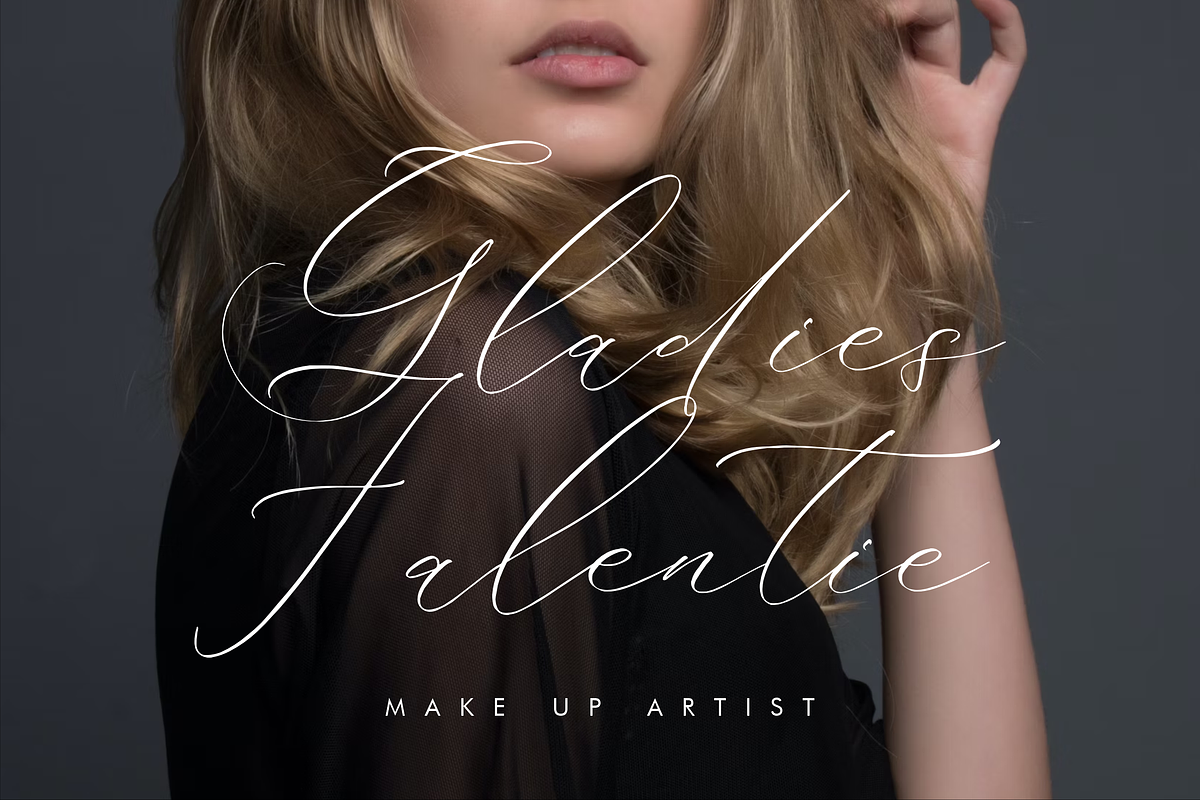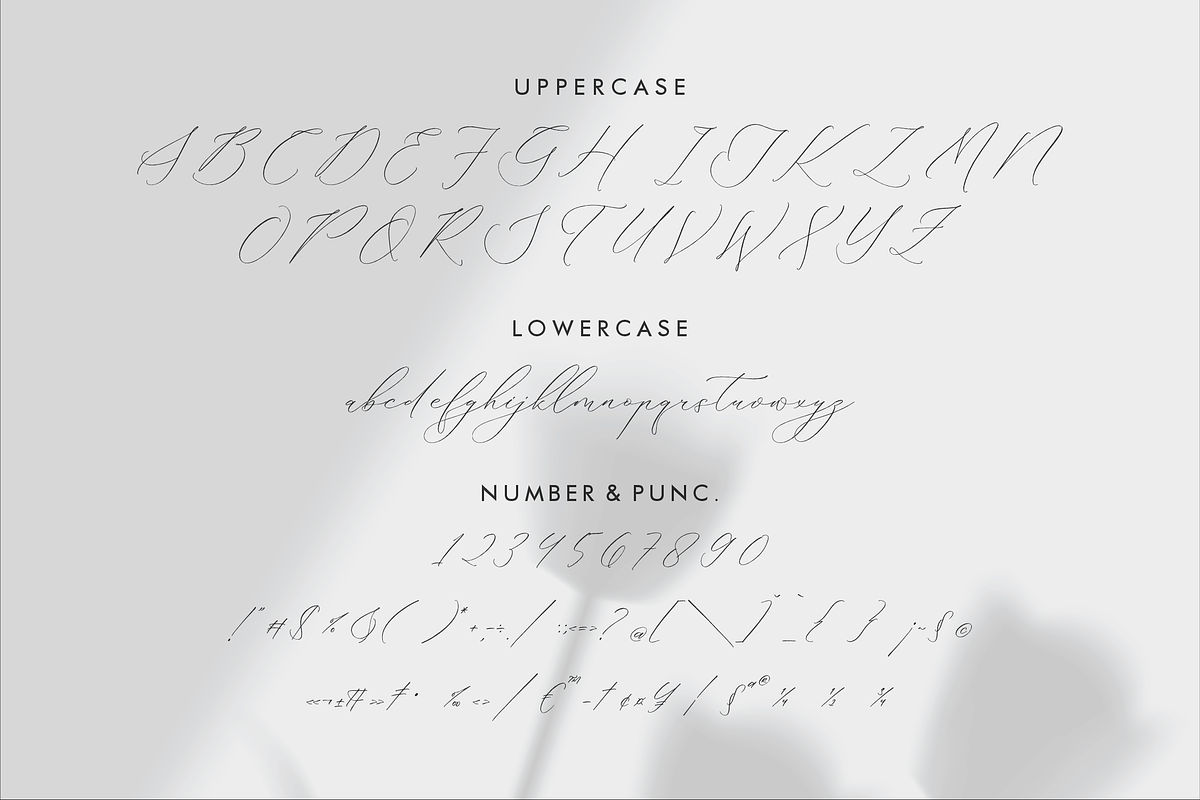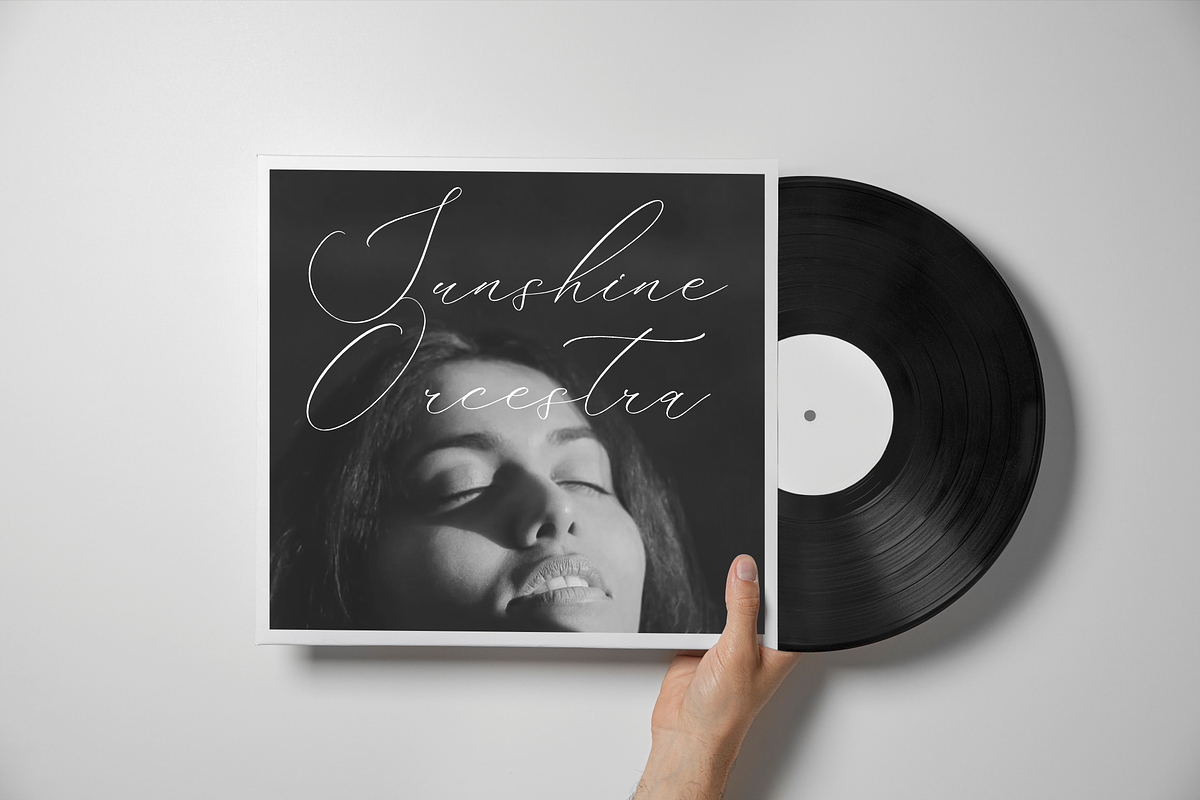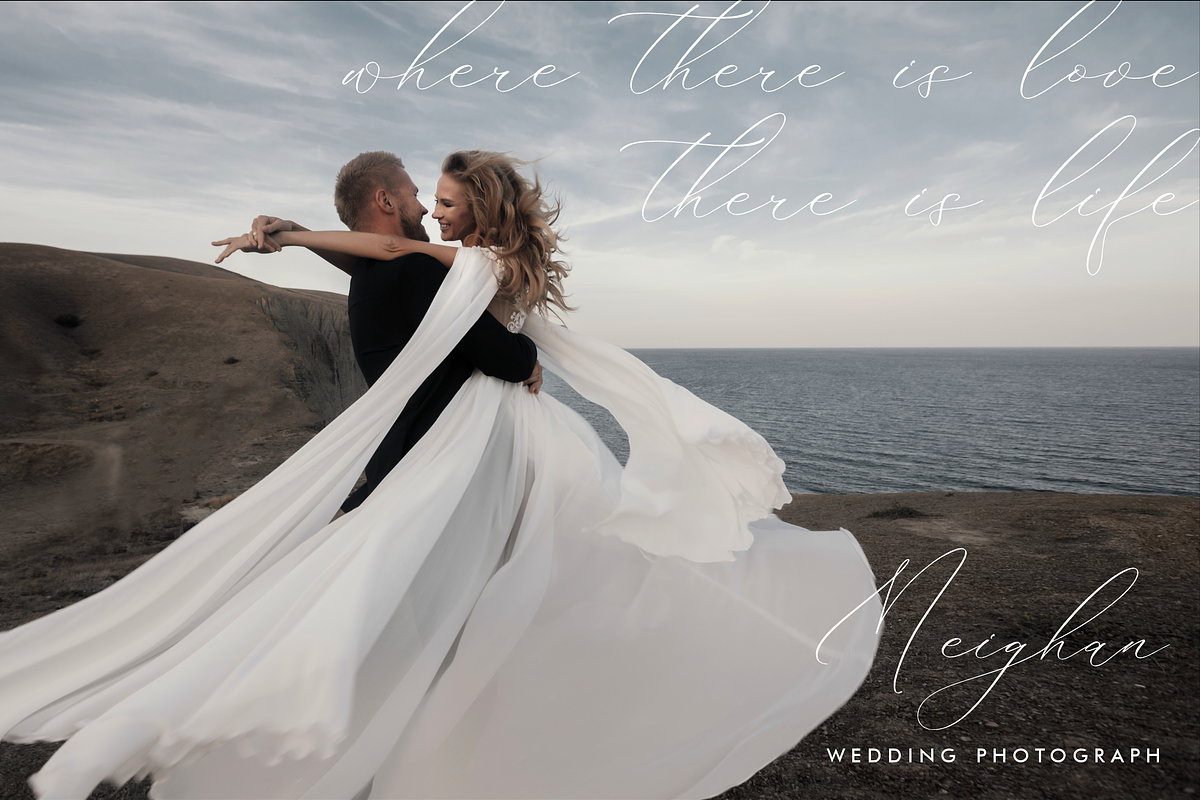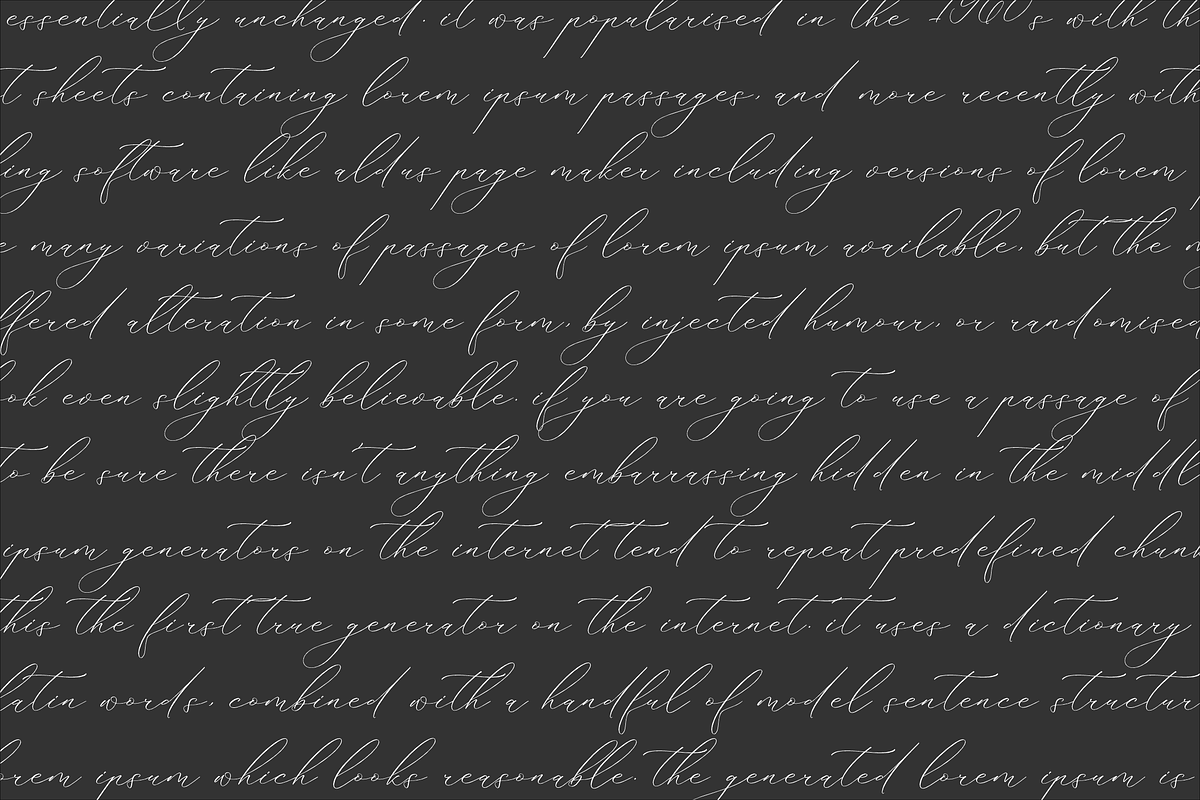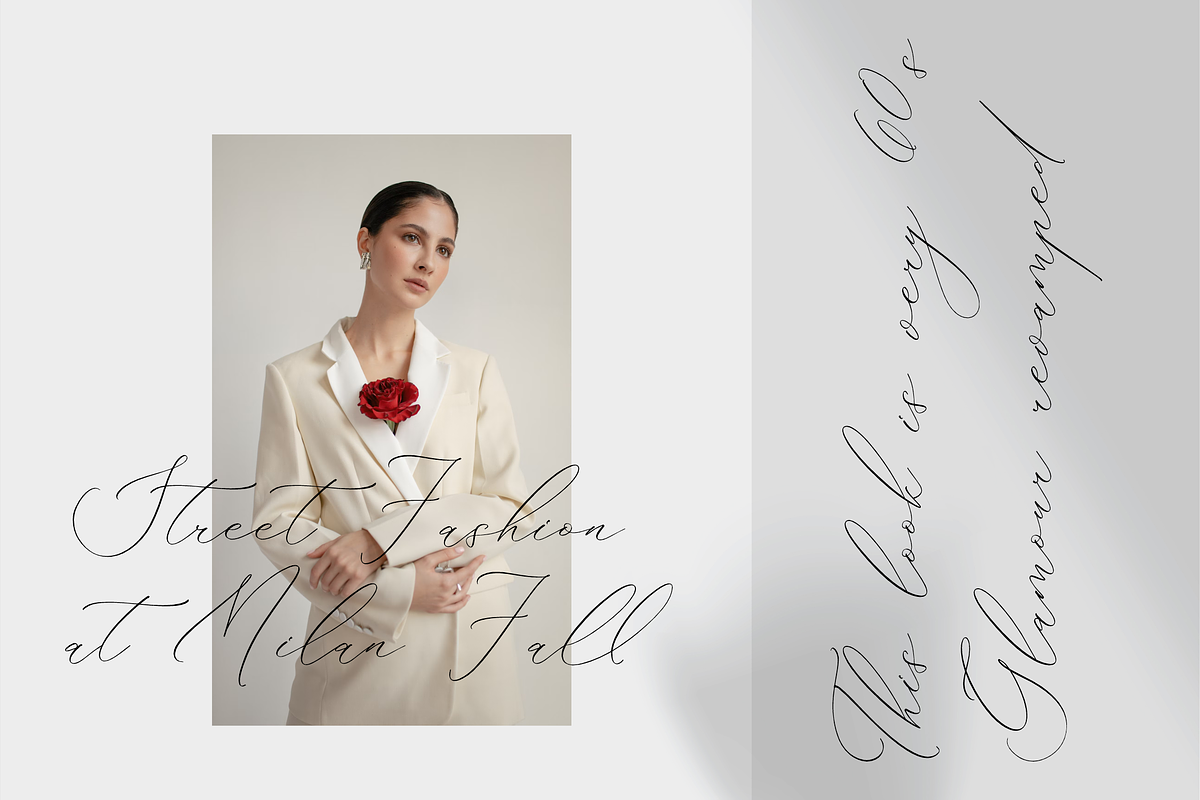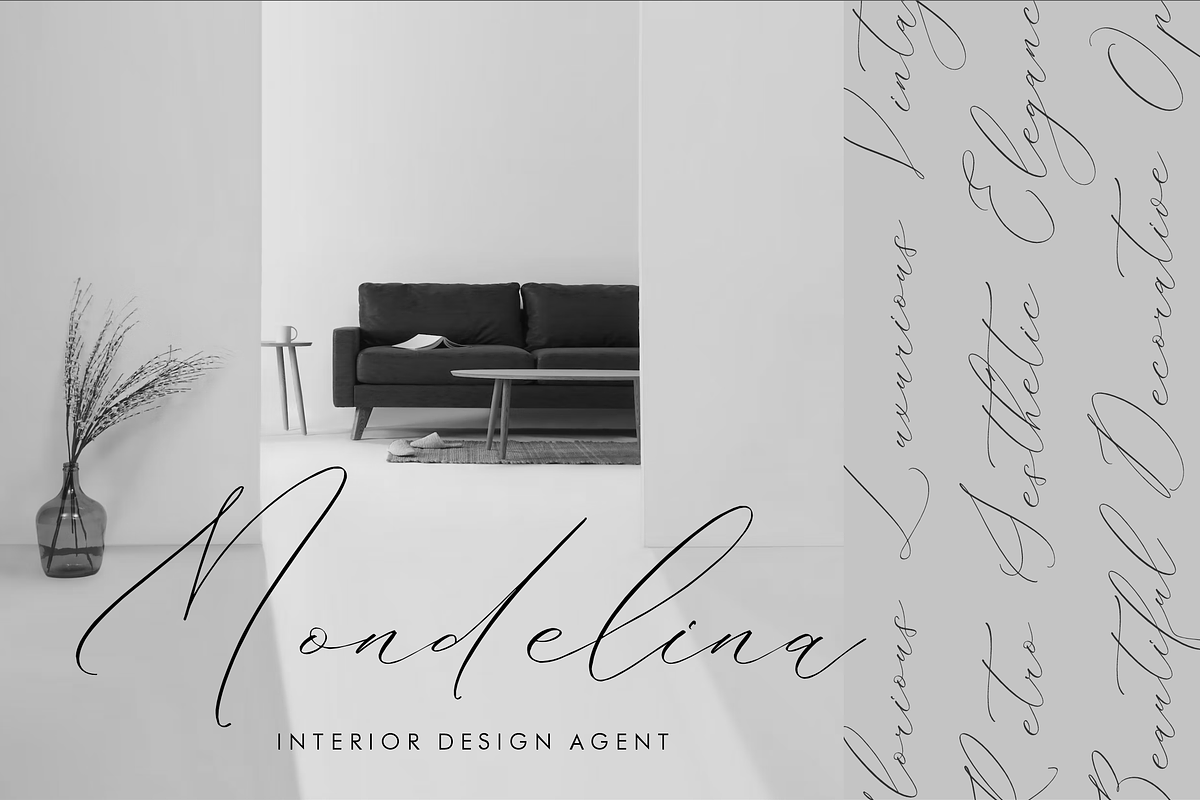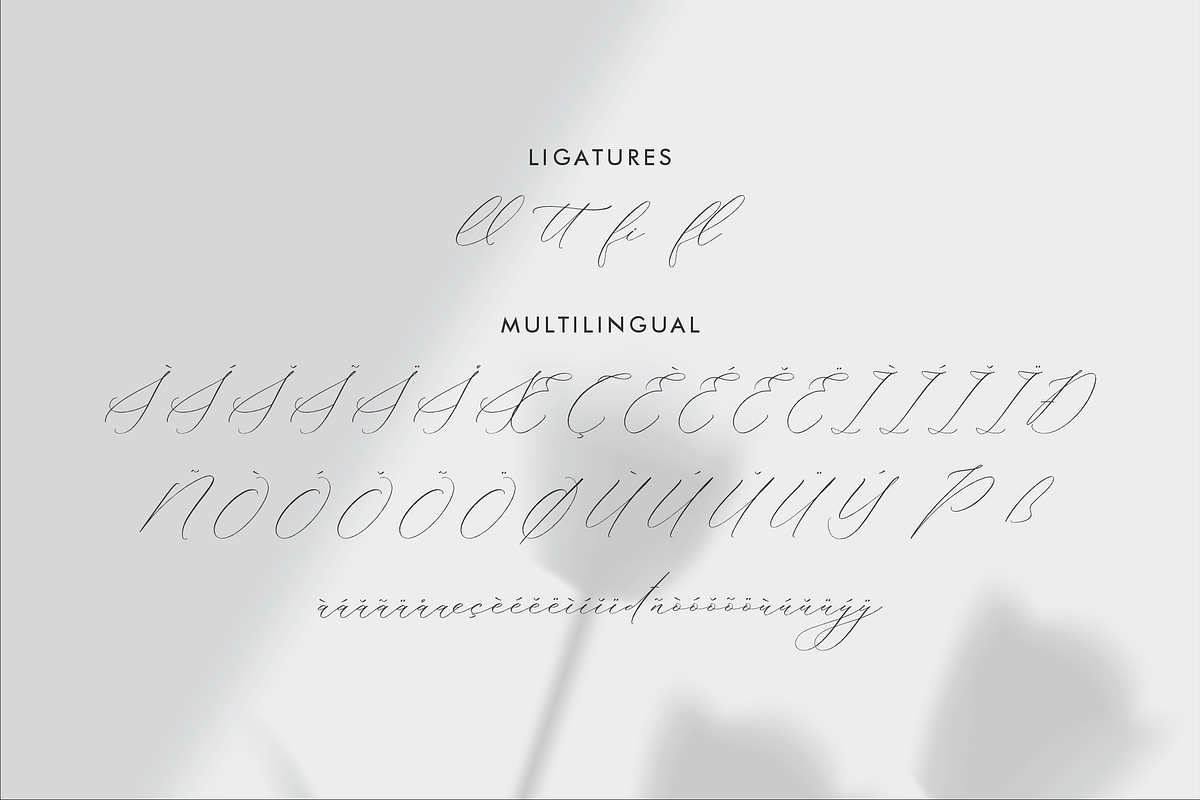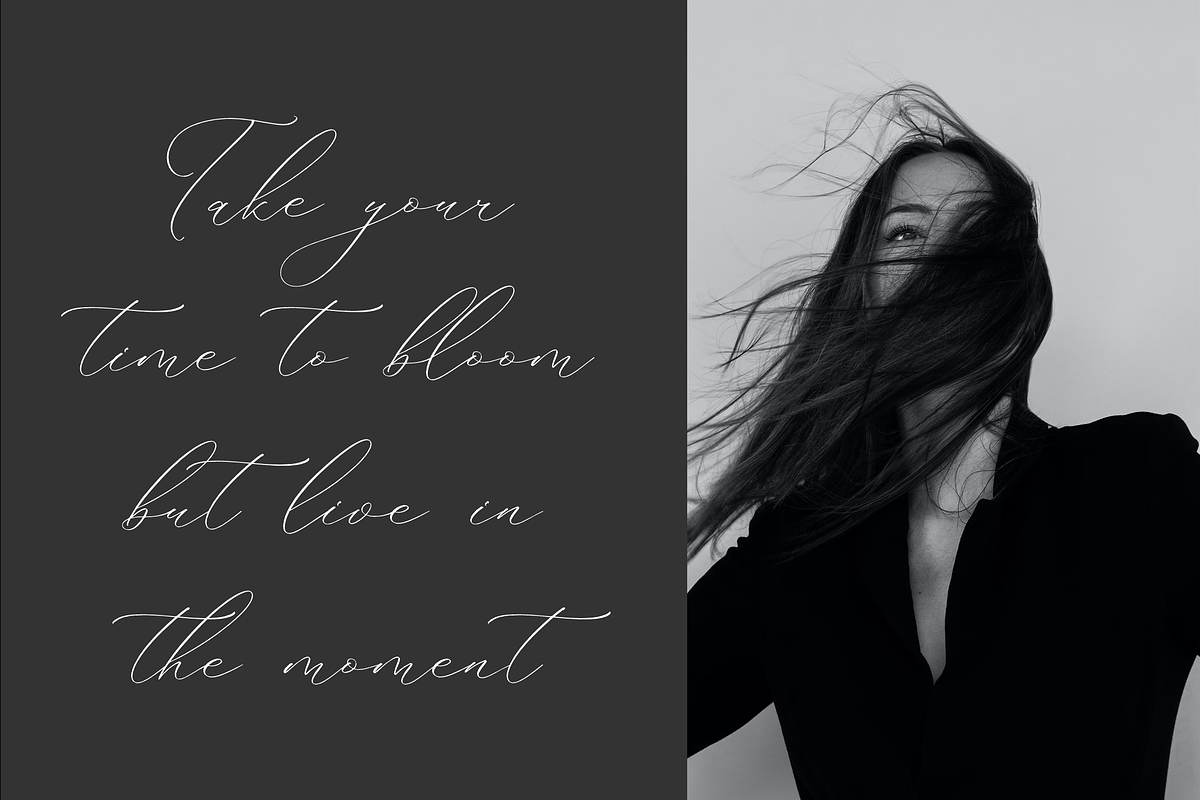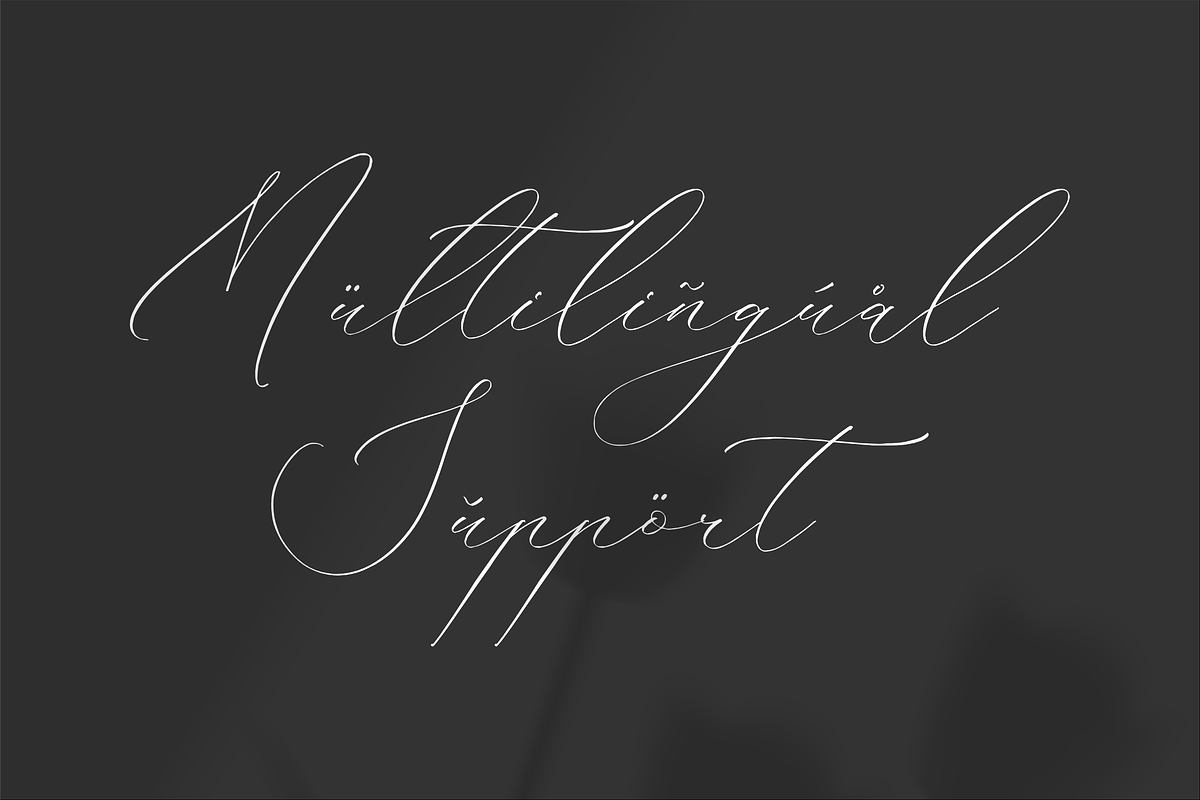
Delistian Valentine Beauty Script
Proudly present Delistian Valentine - Beauty Script Font , created by Storytype, A luxury script that has own unique style & modern look. This typeface is perfect for an elegant & luxury logo, book or movie title design, fashion brand, magazine, clothes, lettering, quotes, and so much more.